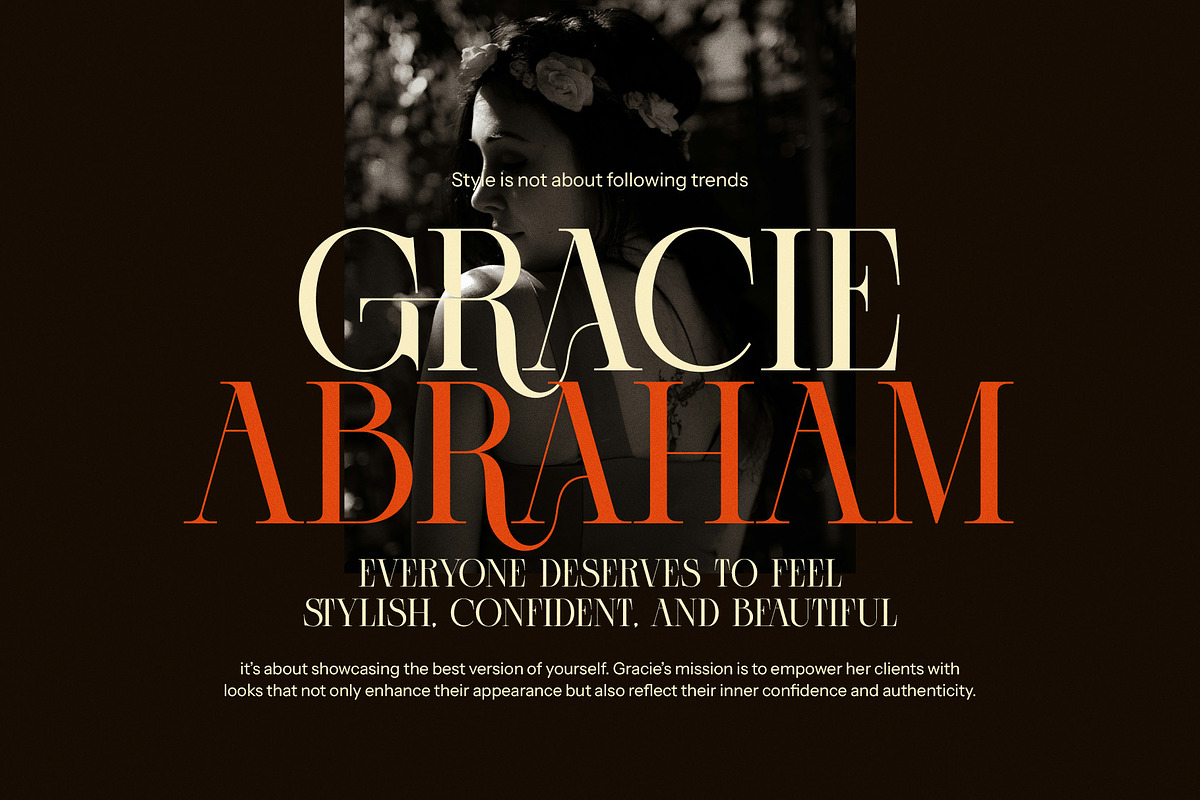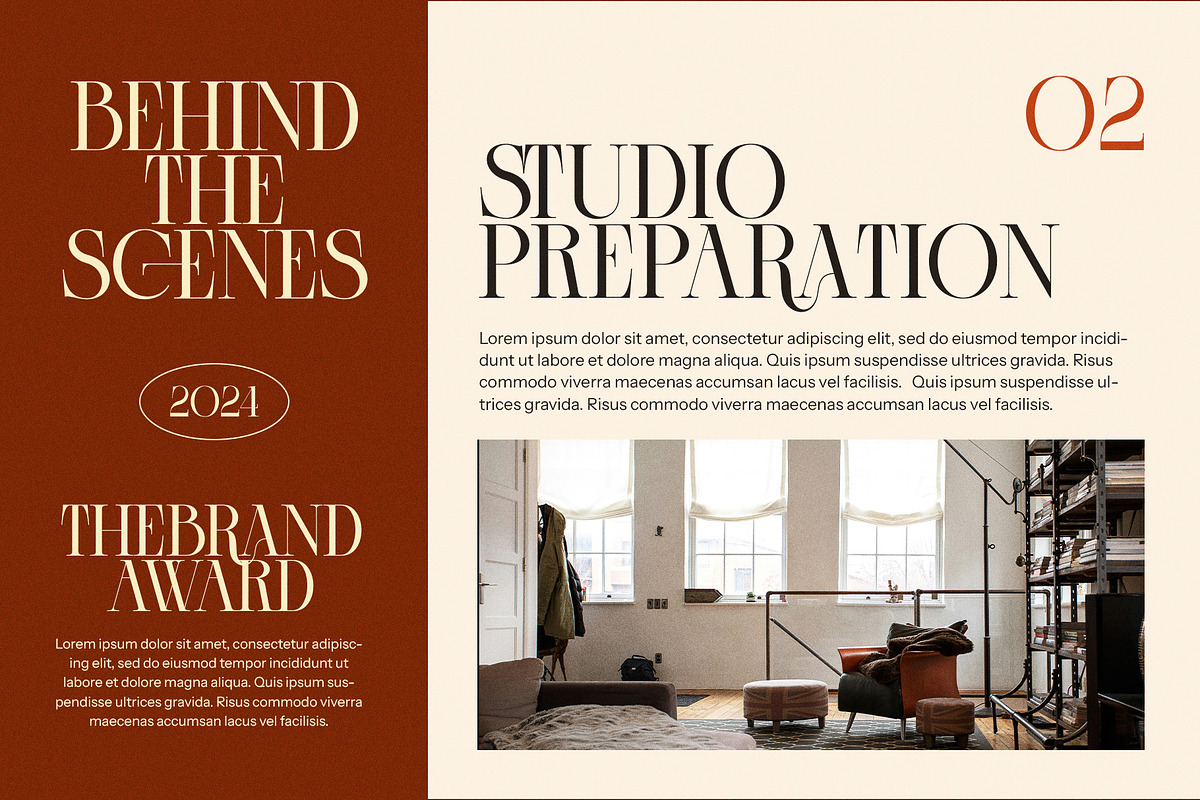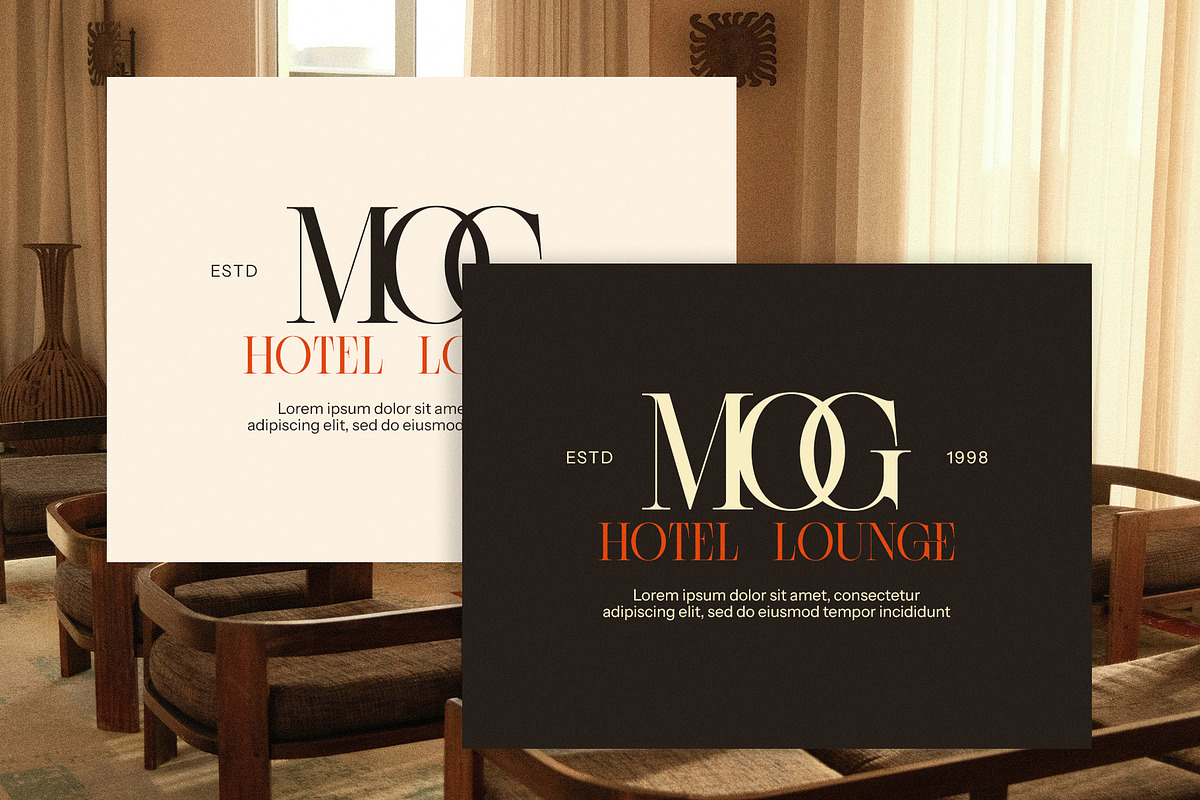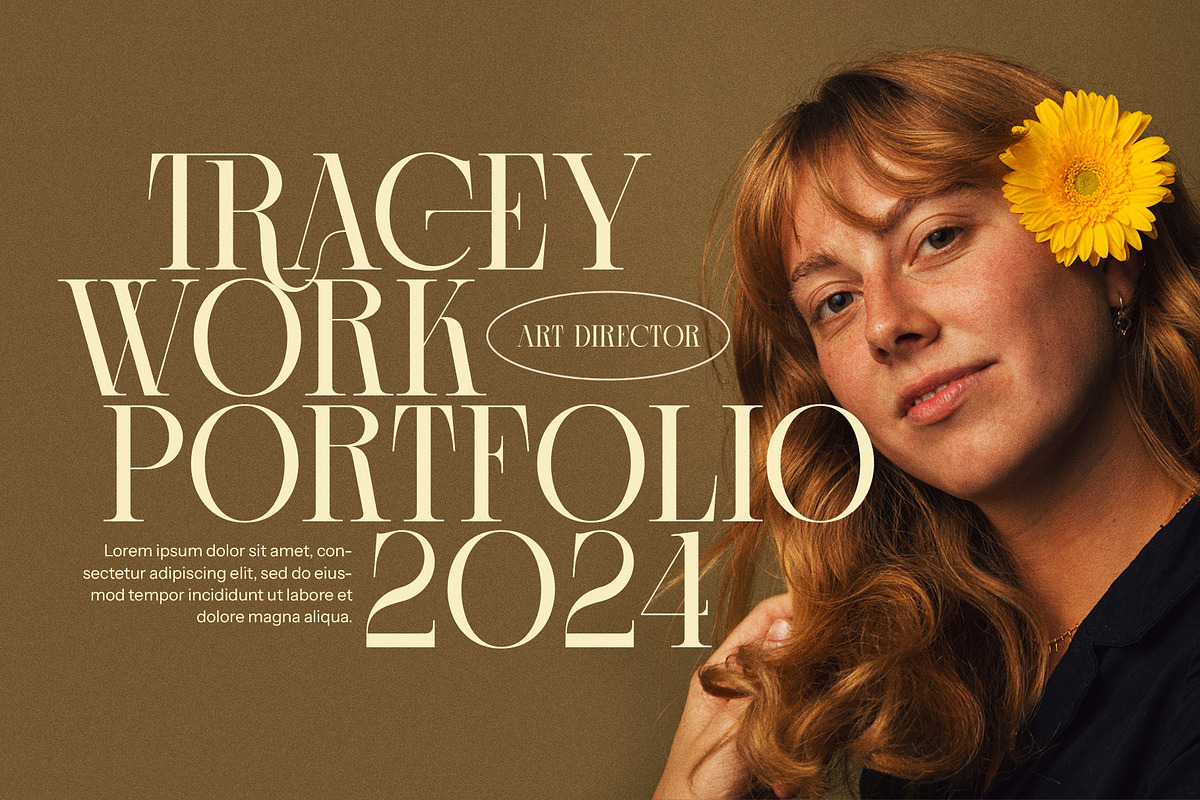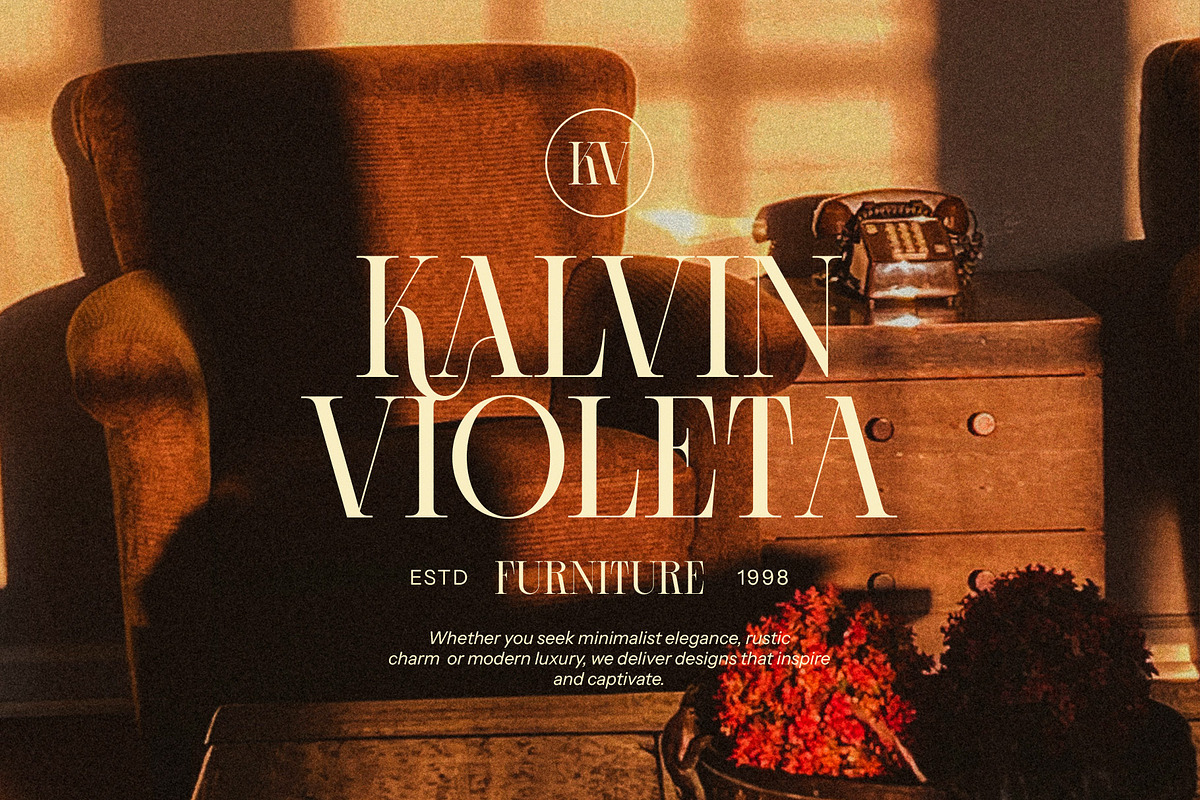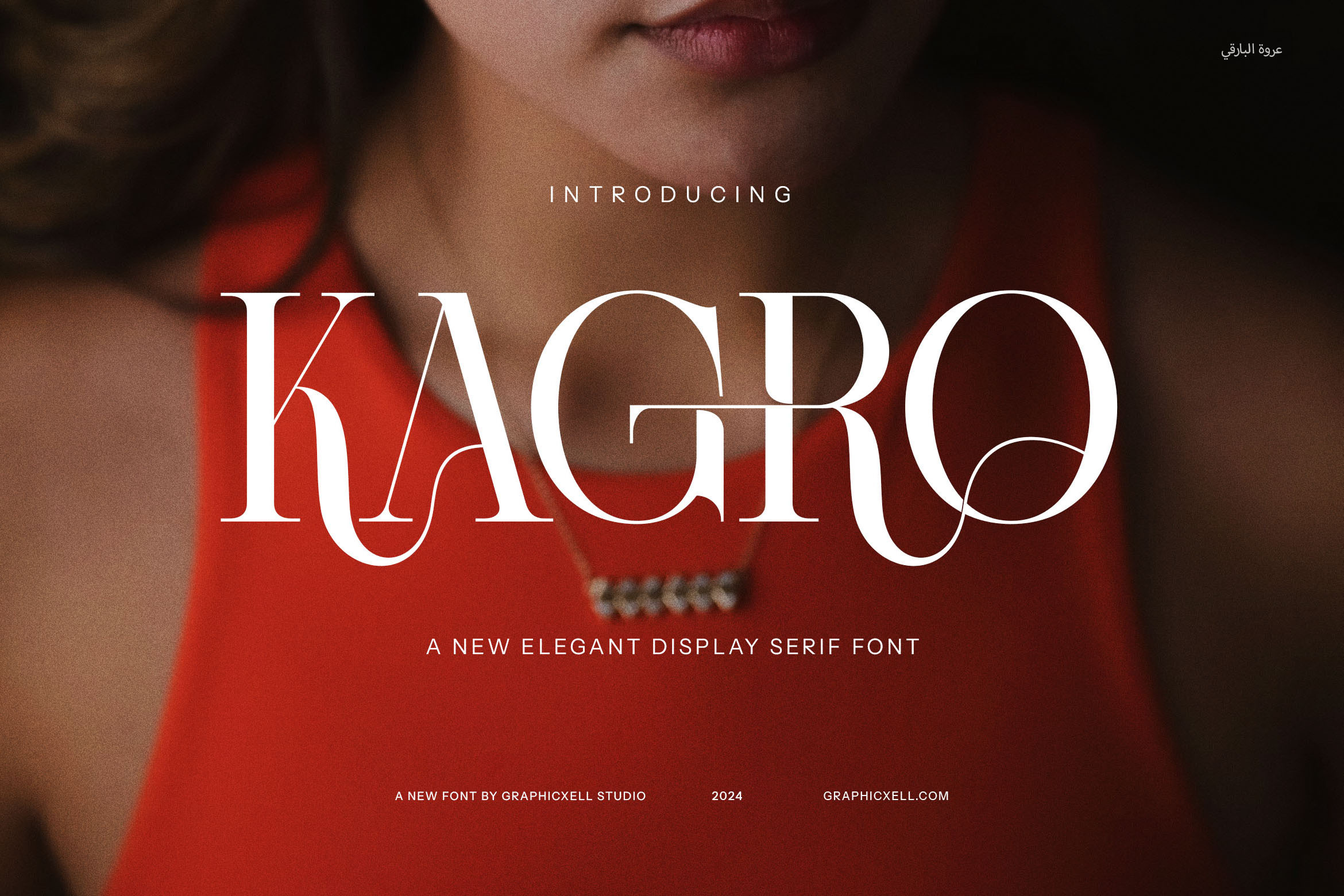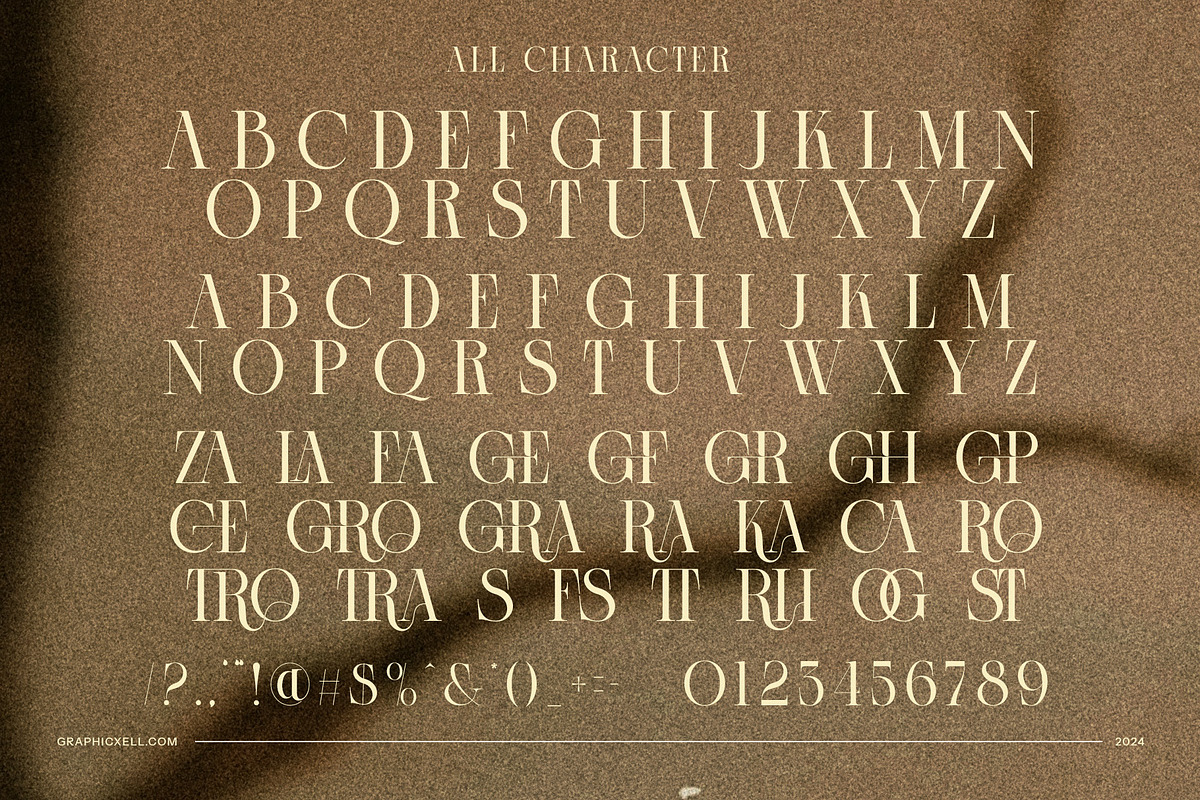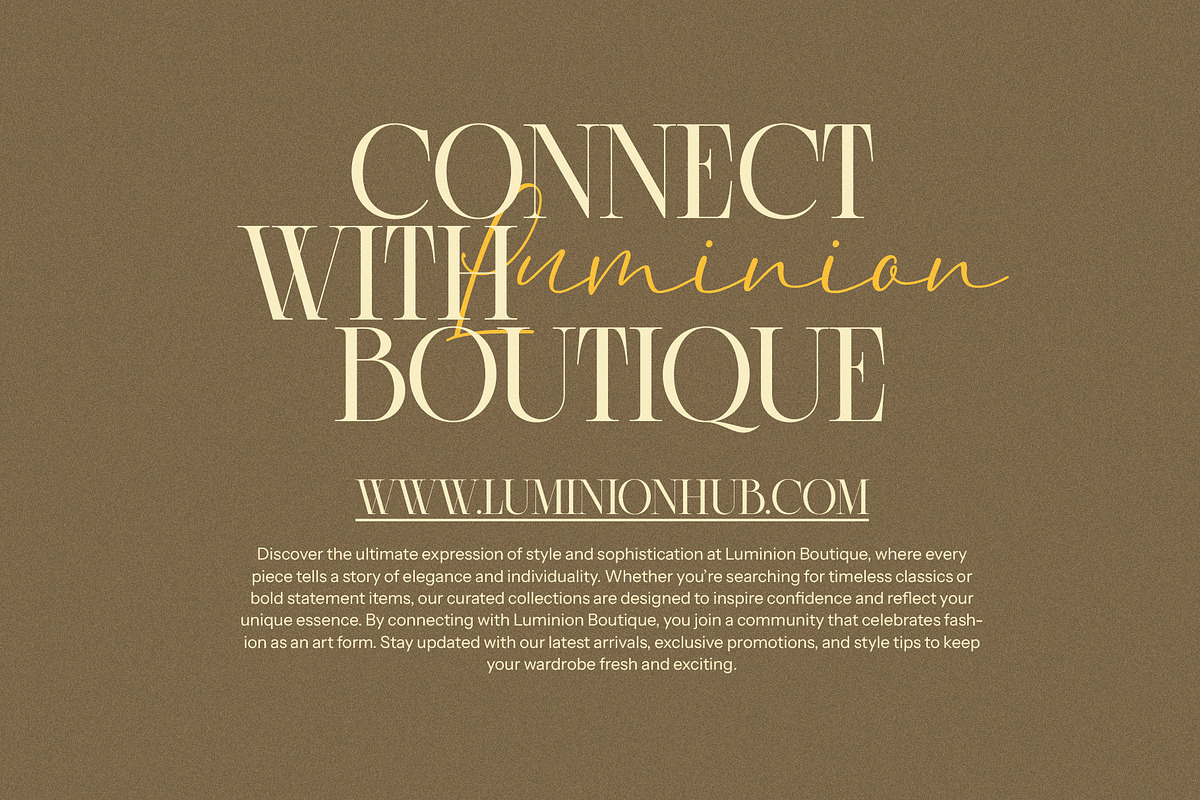
Kagro Elegant Serif Font
Kagro Elegant Serif Font is a sophisticated typeface that blends modern design with timeless elegance. Its sleek and graceful letterforms are enhanced by beautifully crafted ligatures and unique alternate options, giving your creative projects an artistic and distinguished edge. Every detail in Kagro is thoughtfully designed to exude class and refinement, making it a standout choice for high-end designs.
Perfectly suited for logos, branding, and editorial work, Kagro’s versatility shines across various applications. Whether you’re designing a polished website, a stylish magazine layout, or premium product packaging, this font delivers a sense of luxury and professionalism. Its clean yet expressive style makes it equally ideal for fashion, beauty, boutique branding, and gourmet advertisements.
Kagro’s alternates and ligatures allow for customization, enabling designers to craft truly unique and memorable visuals. The font’s modern serif structure ensures excellent readability while adding a touch of sophistication to both bold headlines and detailed body text. It performs beautifully in both digital and print formats, giving your work a cohesive and harmonious look.
Designed for creatives seeking elegance and impact, Kagro elevates any project with its contemporary yet classic aesthetic. From chic invitations to striking brand identities, this font radiates confidence and style. With Kagro Elegant Serif Font, you’re not just adding a typeface—you’re making a statement of sophistication and artistry.